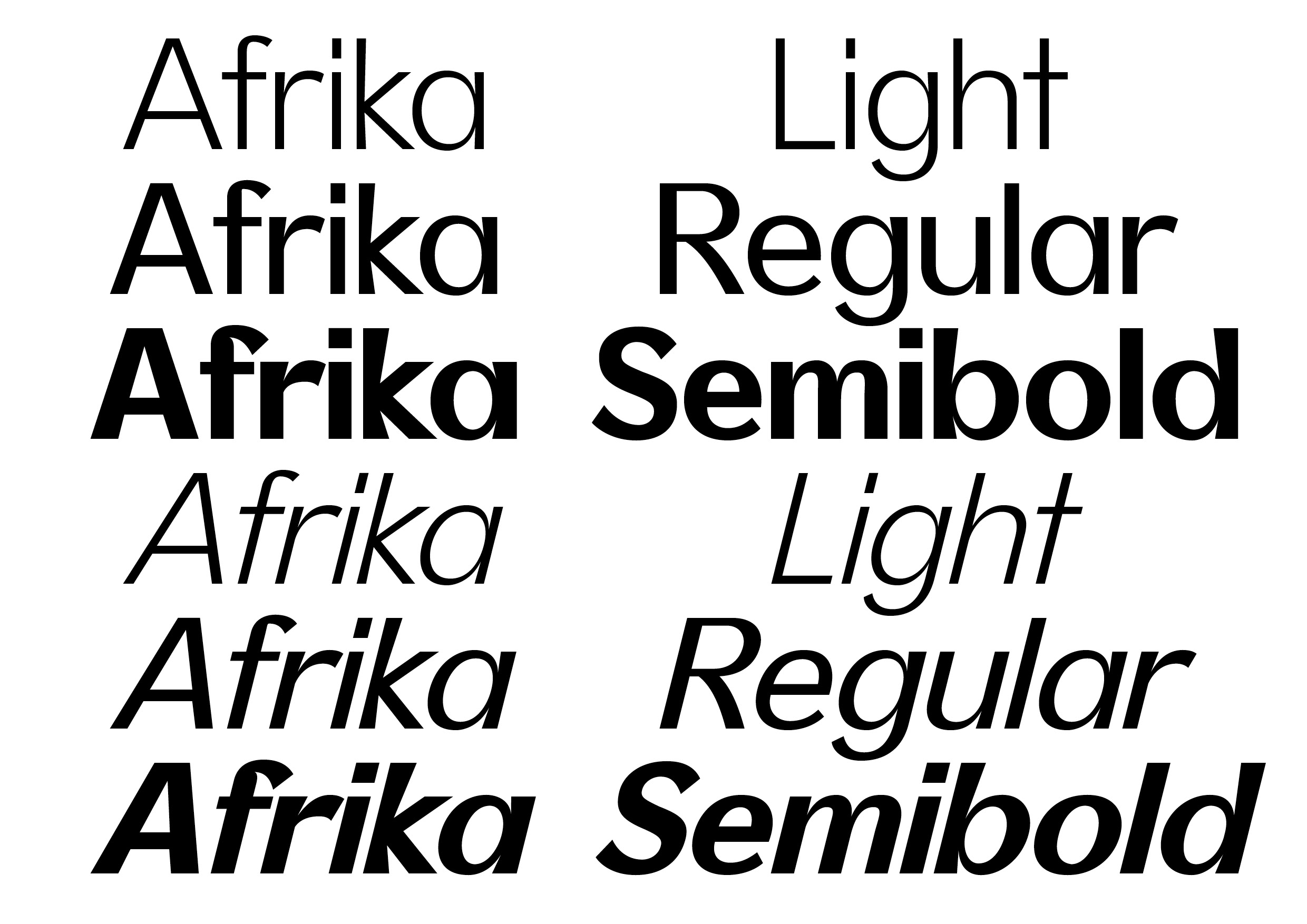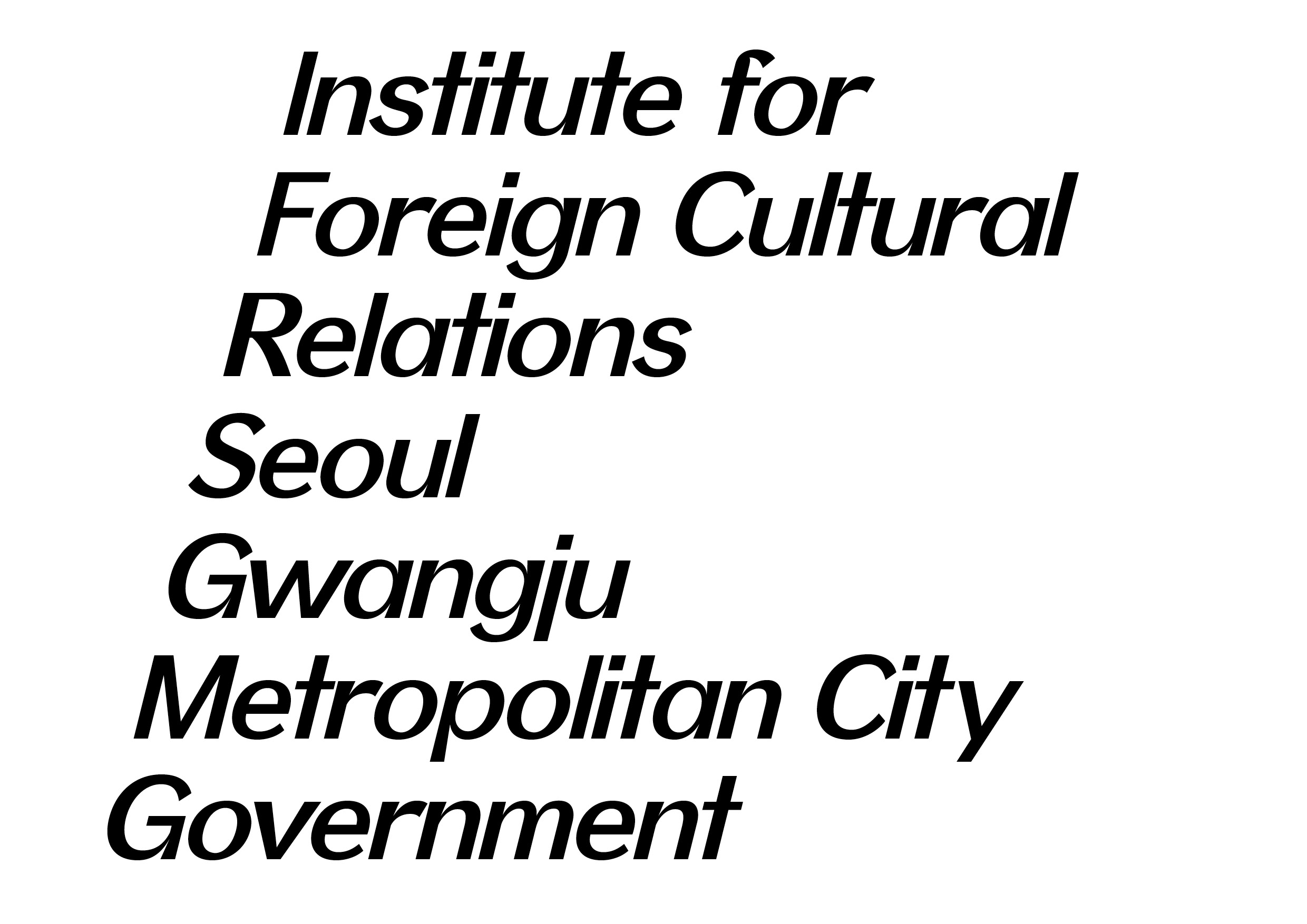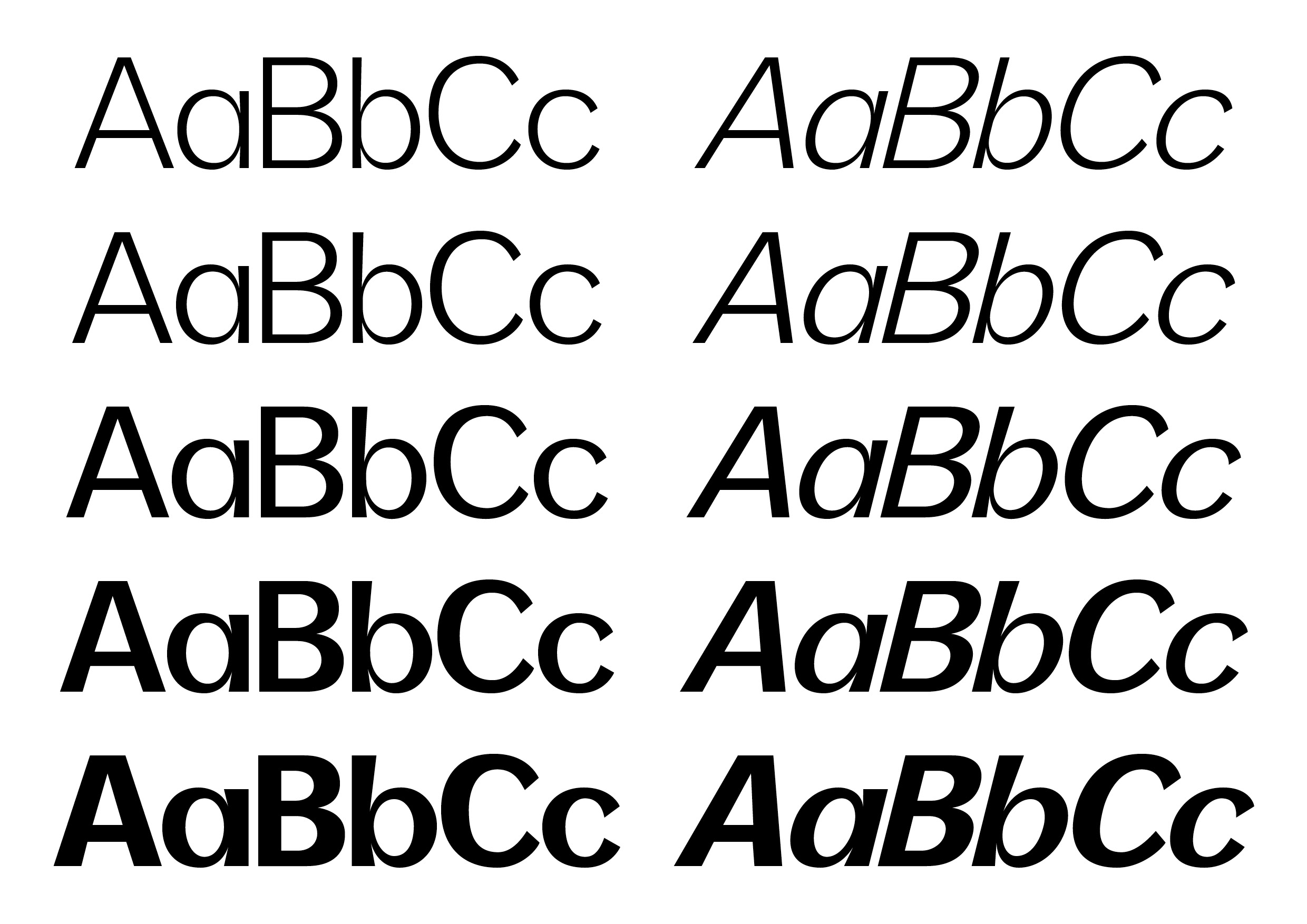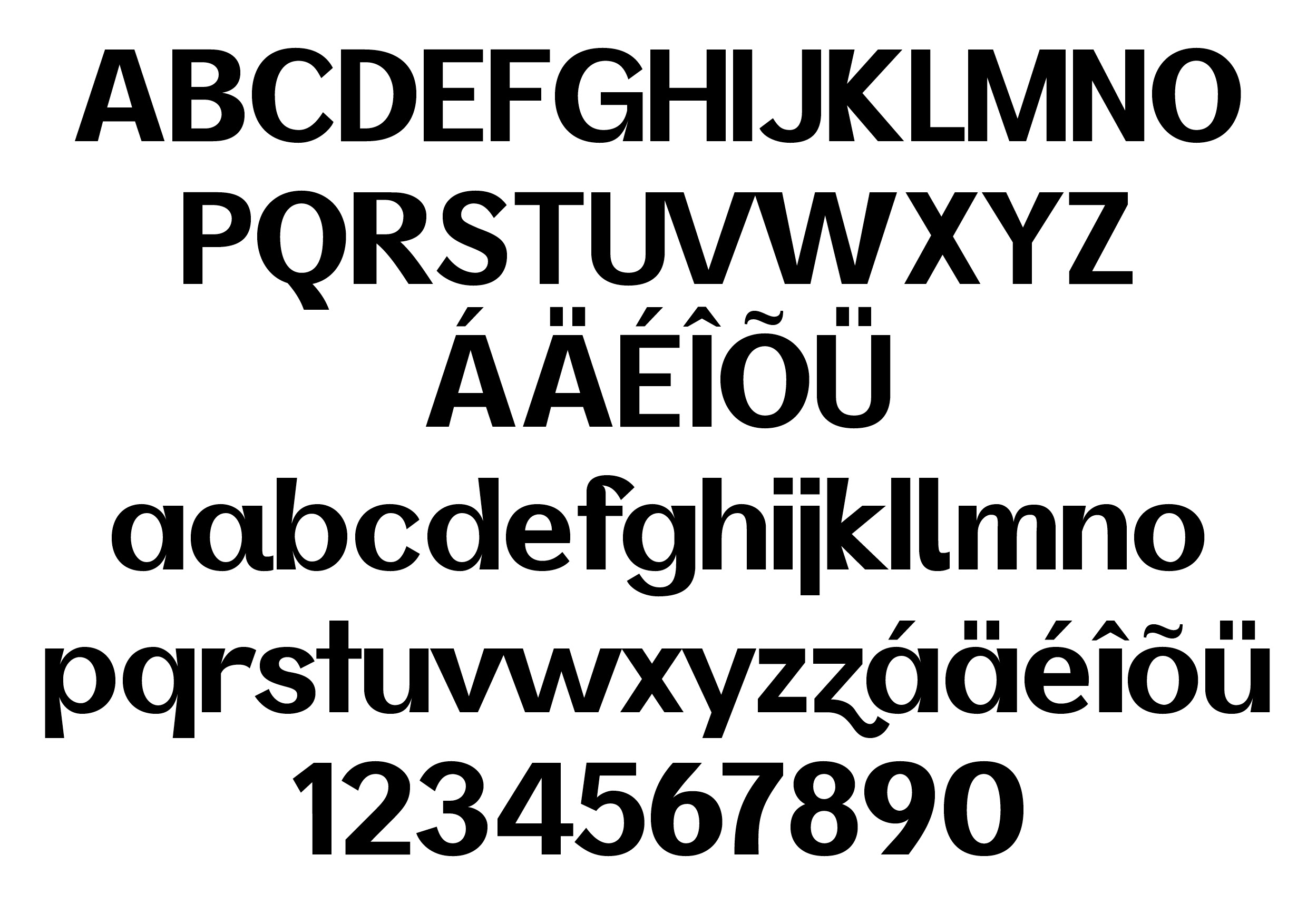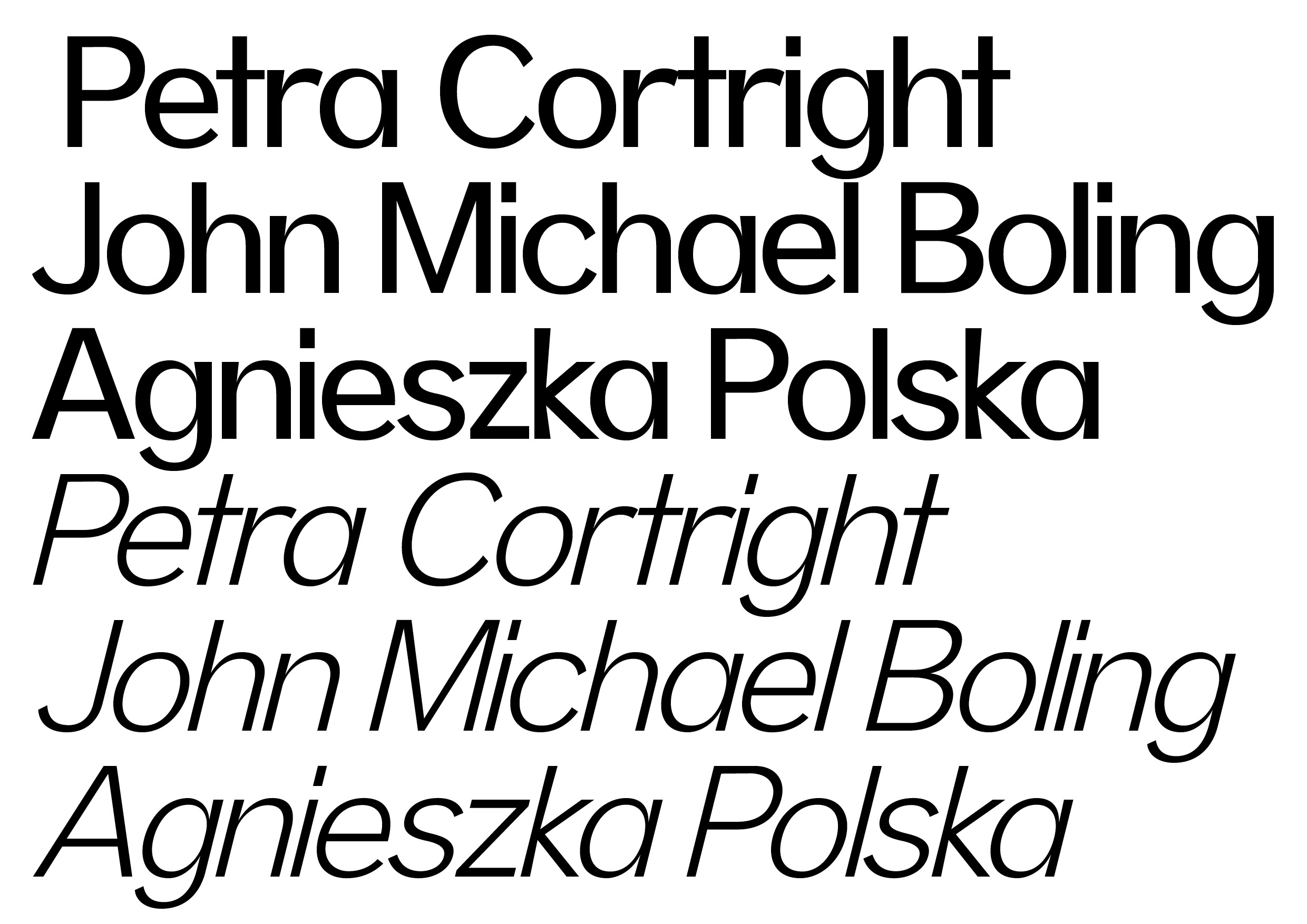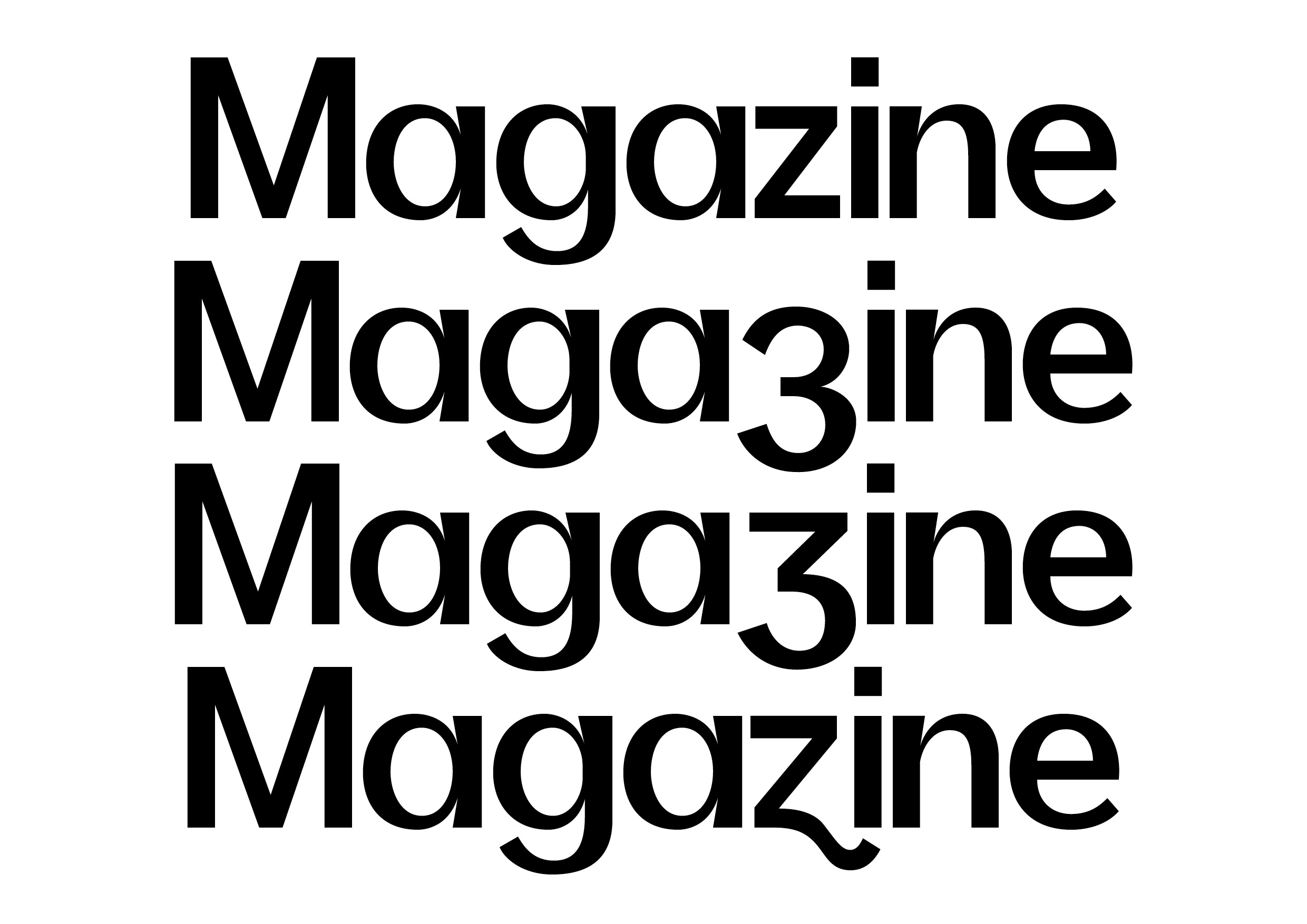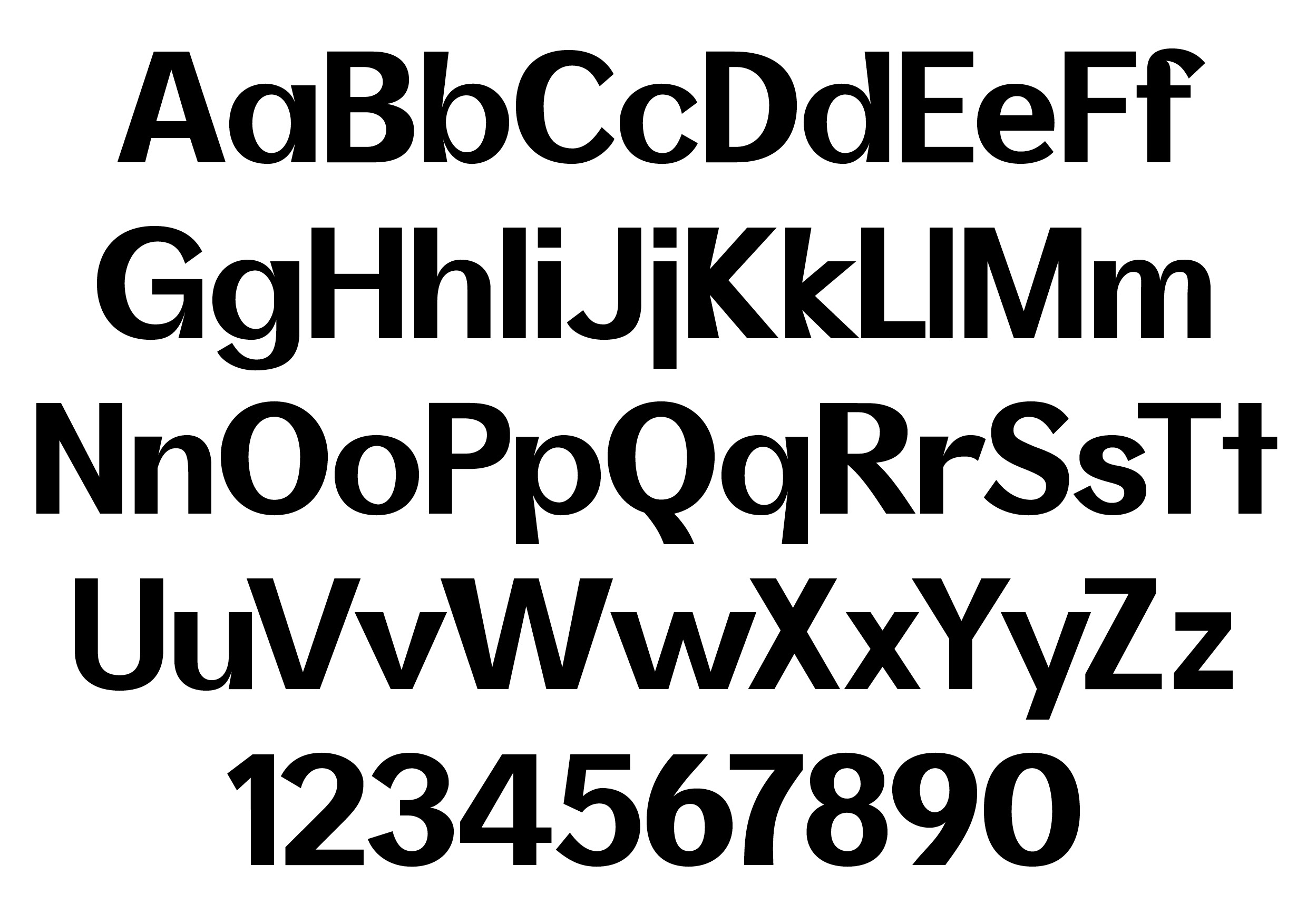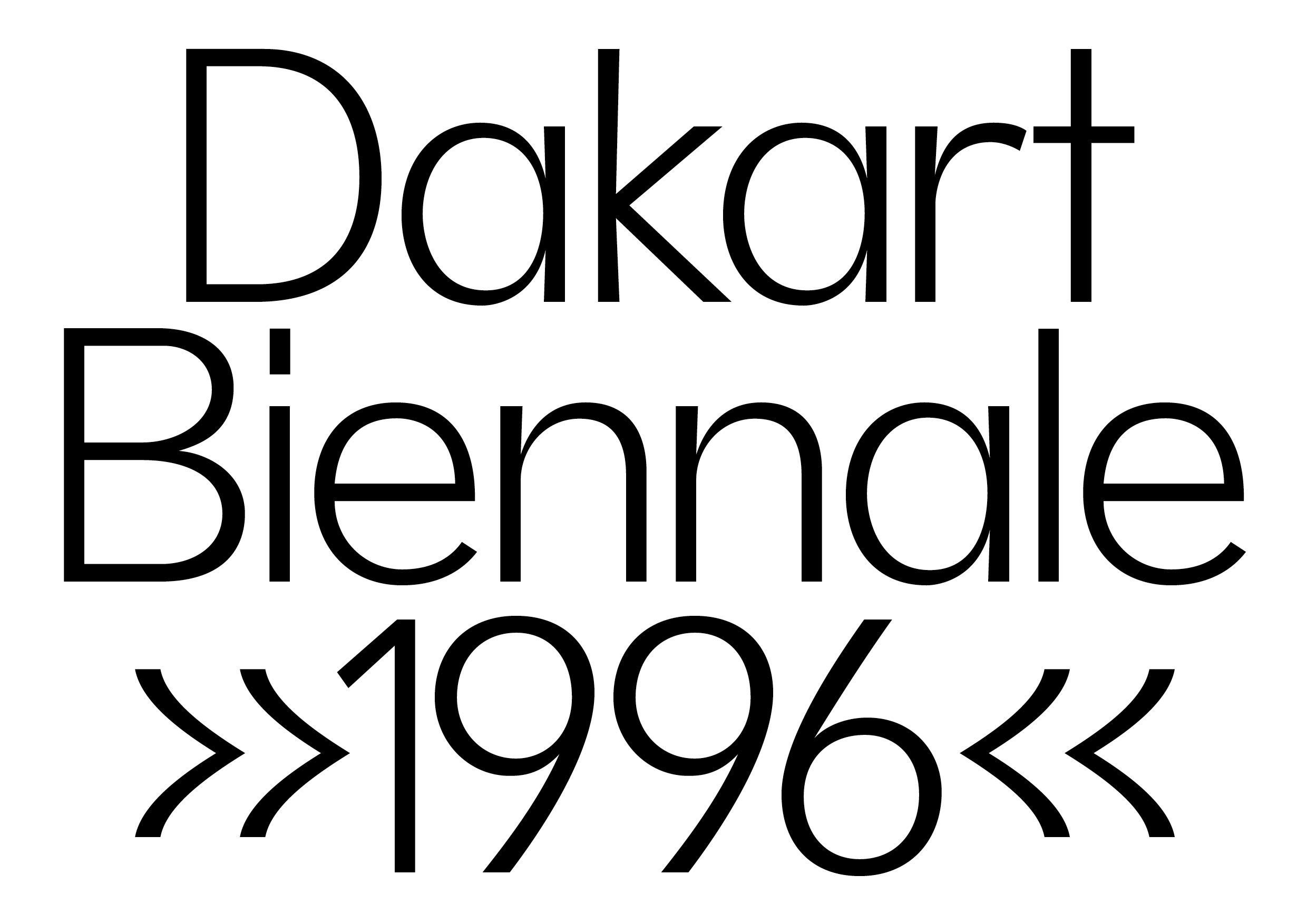
Afrika Sans
Afrika Sans is a warm, romantic typeface inspired by the 20th-century African art movement. Just as European avant-garde artists like Picasso and Matisse drew from African sculpture and traditional forms, Afrika Sans channels that same spirit of innovation. Its brush-like strokes bring a sense of movement and tactility, while its clean, modern structure makes it versatile for contemporary design. The result is a typeface that bridges artistic tradition with modern elegance, both sculptural and avant-garde.